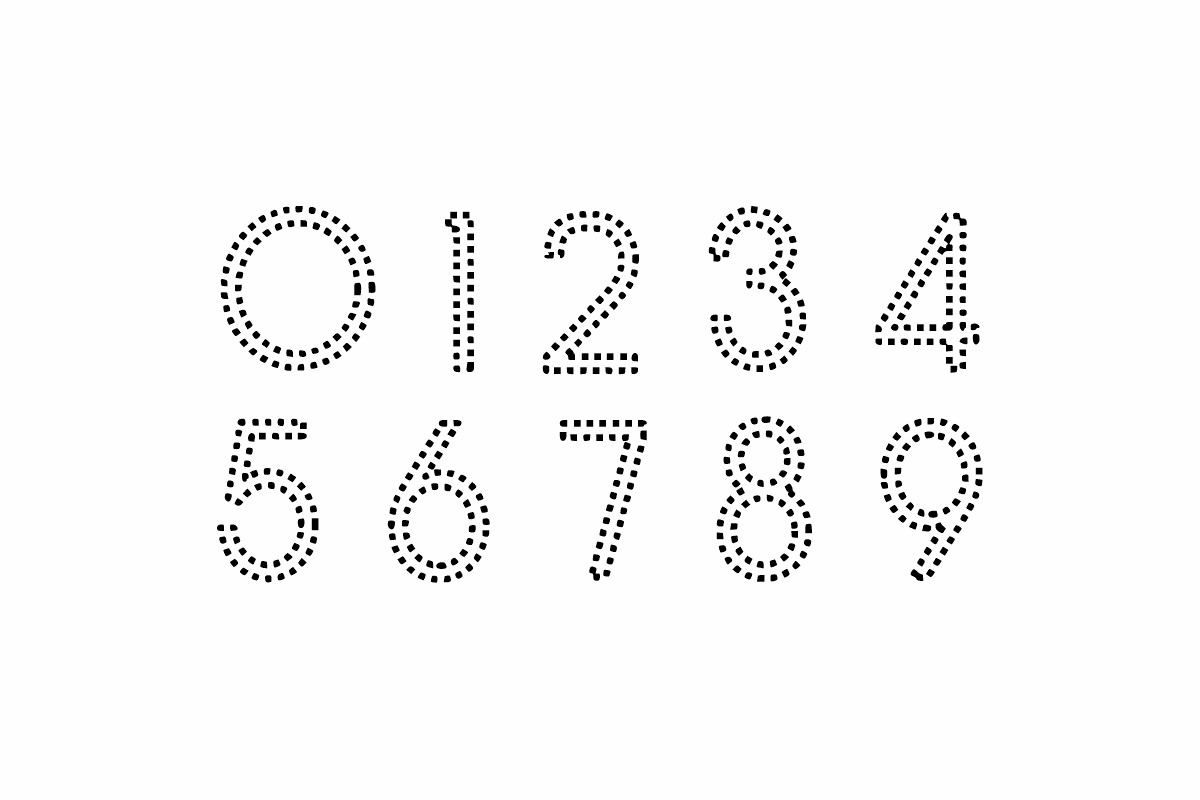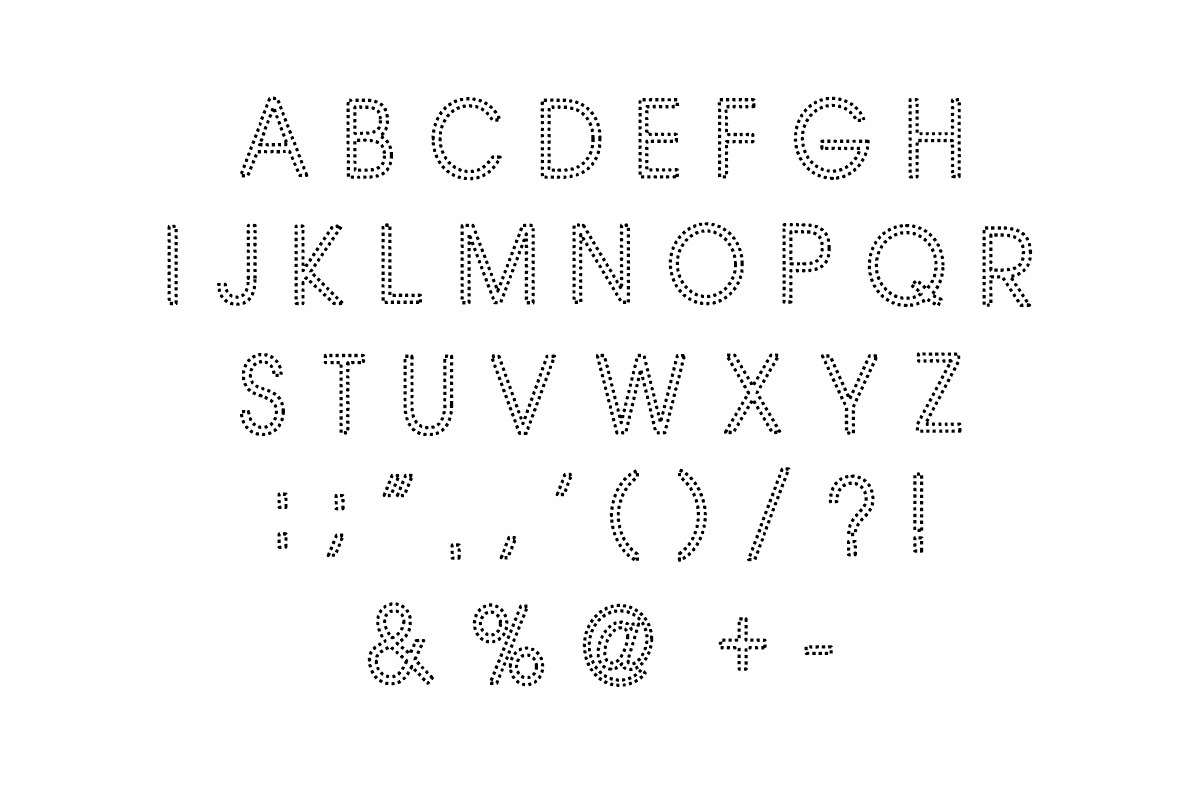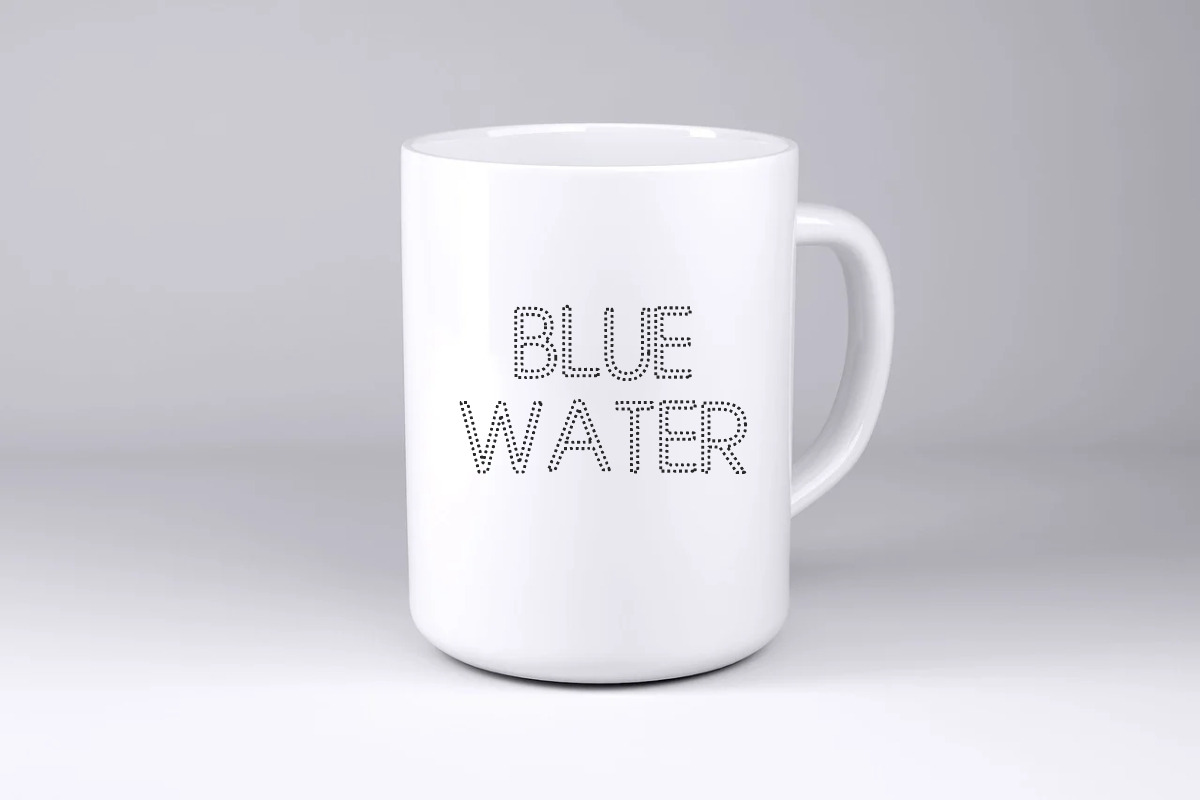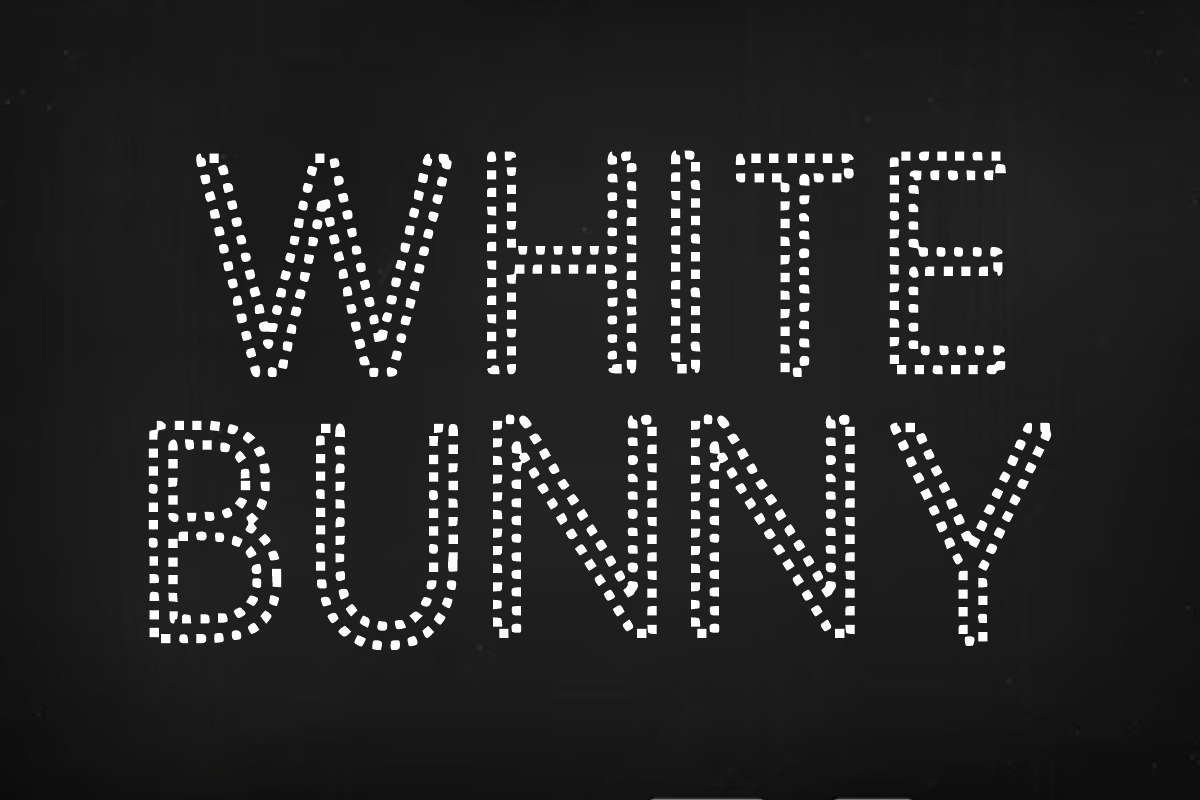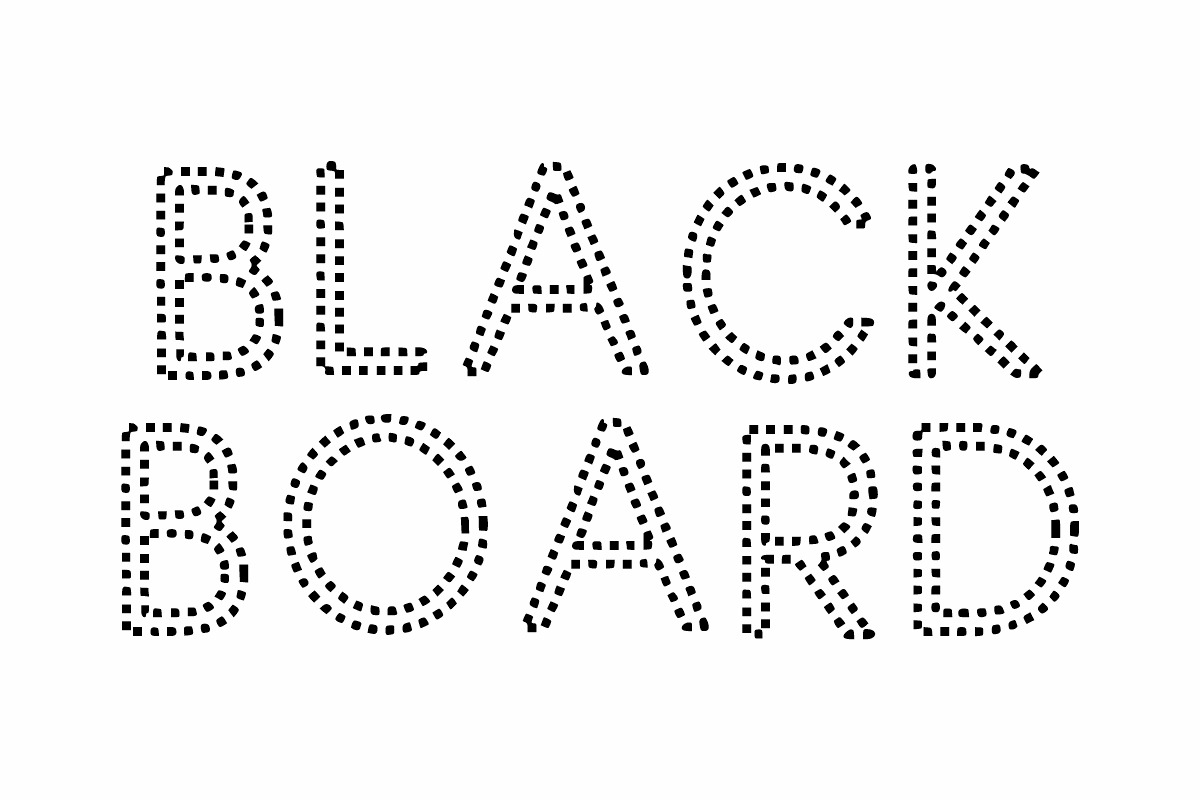
Dotted Flash
Dotted Flash is a polka dot simple -decorated display font. This easy-to-read typeface conveys impeccable friendliness, and it is perfect for games. Whether you’re using it for crafts, digital design, presentations, or greeting cards, this font has the potential to become your favorite go-to font, no matter the occasion!